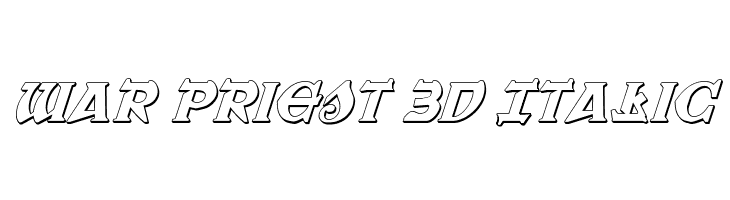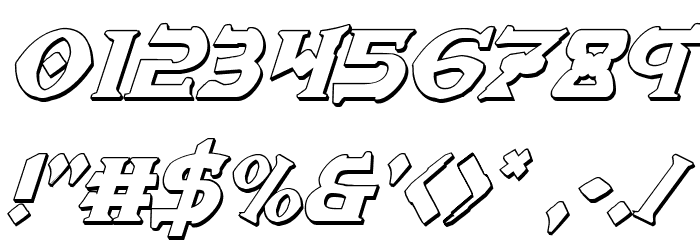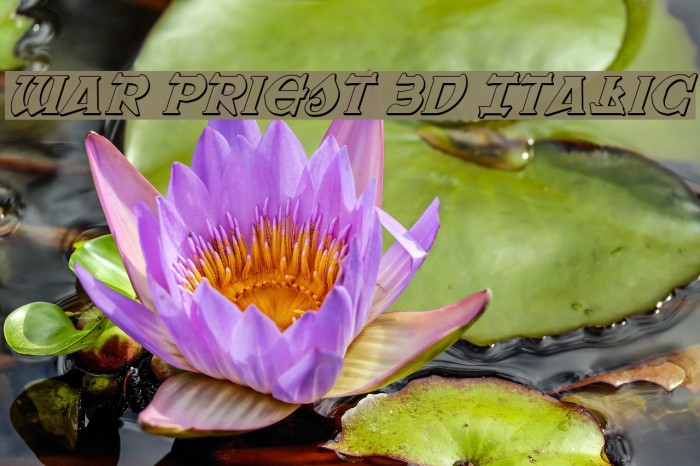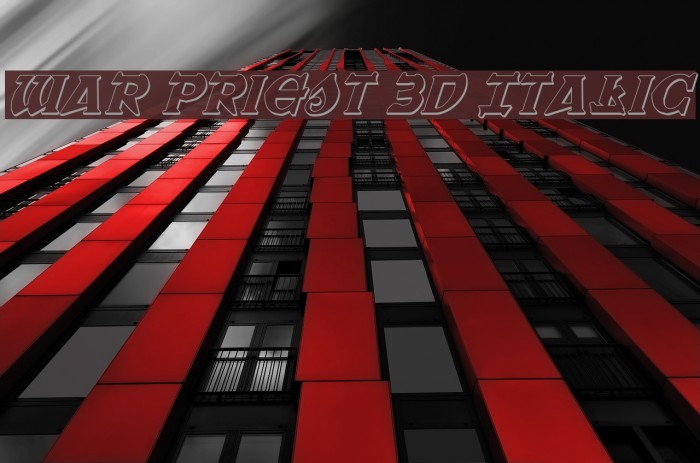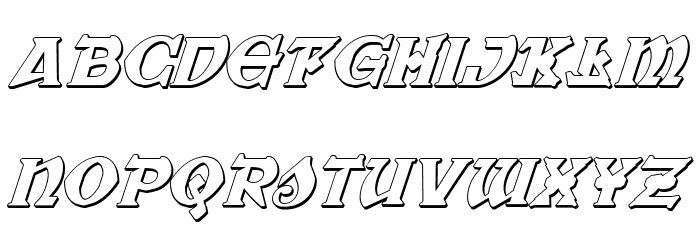
War Priest 3D Italic Font
This font features a bold, three-dimensional design with an italic slant, giving it a dynamic and impactful appearance. The characters are outlined, creating a shadow effect that enhances the 3D illusion. The angular and sharp edges of the letters contribute to a modern and aggressive style, making it suitable for attention-grabbing headlines or titles. The uppercase and lowercase letters maintain consistent styling, and the numerals and special characters are designed to match the overall aesthetic. This font is ideal for projects that require a strong and bold visual presence.
A bold, 3D italic font with sharp, angular edges and a modern style.
• Proposed Projects: Ideal for video game titles, movie posters, sports branding, and dynamic advertising campaigns.